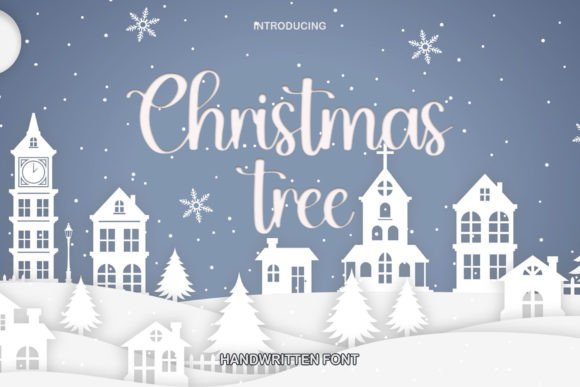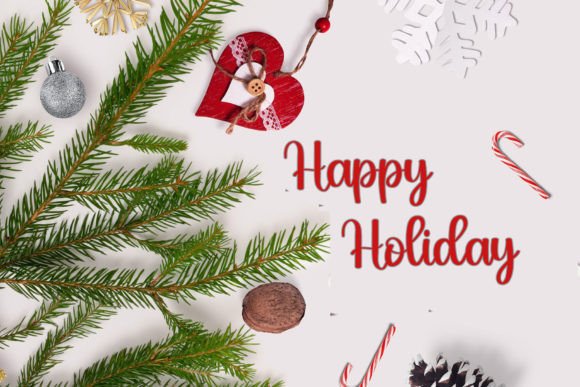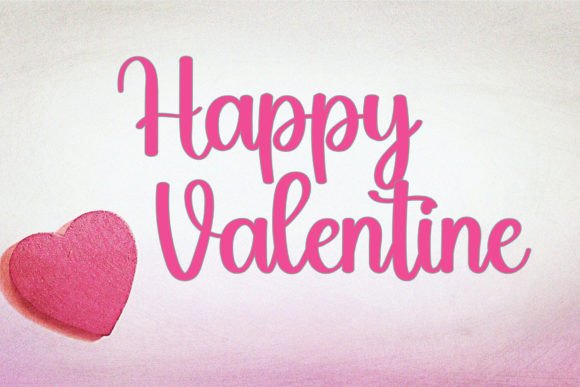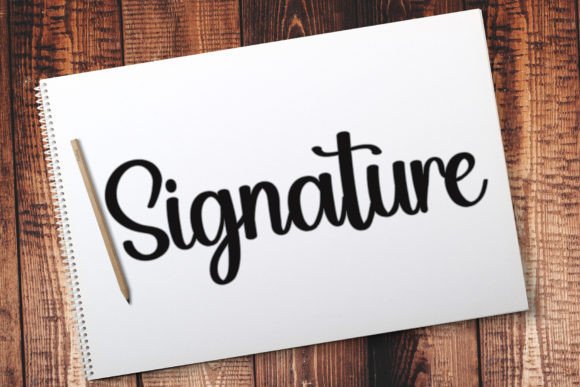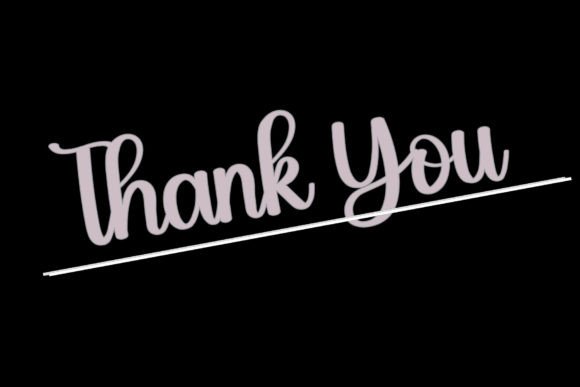
Christmas Tree Font
Celebrate the Season with Christmas Tree Handwritten Font
The Christmas Tree Handwritten Font brings the spirit of the holidays into every design with its graceful calligraphy and stylish charm. Blending timeless elegance with a modern twist, this font is the perfect choice for festive designs that require sophistication, warmth, and a personal touch.
Whether you’re designing holiday greeting cards, branding seasonal promotions, or crafting invitations for winter events, this font adds a refined and joyful atmosphere to your work.
Designed for Holiday Cheer and Style
Christmas Tree is not just another script font. What sets it apart is its ability to convey both class and coziness. With smooth, flowing strokes and carefully balanced characters, it creates an impeccable handwritten effect that feels authentic and luxurious.
Perfect for:
• Christmas cards and New Year’s greetings
• Seasonal event invitations and flyers
• Holiday-themed product packaging
• Decorative quotes and social media graphics
• Winter wedding or party stationery
This font turns every word into an elegant expression of festive spirit.
Why Choose the Christmas Tree Handwritten Font?
There are many fonts available for holiday designs, but Christmas Tree stands out due to its blend of tradition and modernity. Here’s why you’ll love it:
• Timeless calligraphy style for upscale aesthetics
• Readable and versatile across print and digital media
• Contemporary curves that fit any seasonal theme
• Perfect balance of elegance and approachability
• Ideal for creative professionals and crafters
With its refined yet friendly form, this font ensures your holiday message is both heartfelt and professional.
Add Festive Elegance to Any Project
Thanks to its flowing letterforms and graceful finish, the Christmas Tree font works beautifully with both minimalist and ornate design concepts. Whether you’re keeping things clean or adding a bit of holiday flair, this font adapts effortlessly.
Additionally, it pairs well with other decorative elements such as snowflakes, pine trees, or gold foil effects—helping you create visually stunning designs that leave a lasting impression.
In conclusion, the Christmas Tree Handwritten Font is the ideal typeface for anyone looking to elevate their holiday designs. With its beautiful script style inspired by classic calligraphy, this font brings joy, sophistication, and creativity to everything from printed invitations to online campaigns.
Let your holiday messages shine with elegance. Choose the Christmas Tree font and bring warmth, grace, and charm to your seasonal designs.